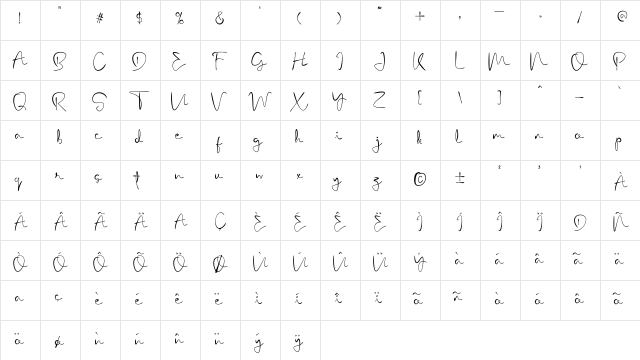
Menttari_demo Regular
Design Context for Menttari_demo Typeface
Menttari_demo is a composed and adaptable typeface that performs quietly and consistently across a wide range of design contexts.